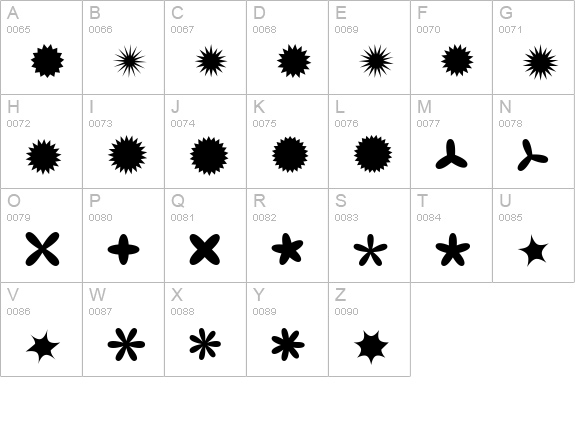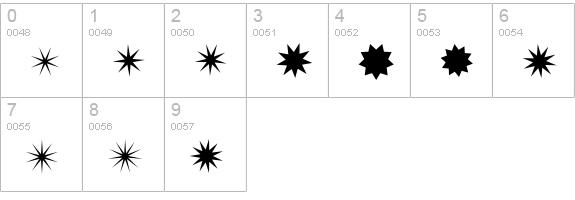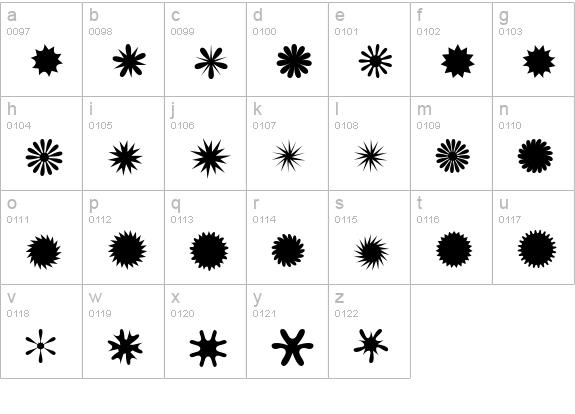
XSternStella Night Font Details
XSternStella Night is a uniquely designed font that exudes elegance and sophistication. With its sleek lines and modern aesthetic, this font is perfect for creating eye-catching designs that demand attention. The versatility of XSternStella Night allows it to be used for a wide range of projects, from branding to editorial design. One of the best things about XSternStella Night is that it is available for free download at FontsMarket.com. This means that you can easily access this stunning font and use it in your projects without any cost. Whether you are a professional designer or a hobbyist looking to elevate your creations, XSternStella Night is the perfect addition to your font library. Download XSternStella Night today and add a touch of sophistication to your designs with this exceptional font.